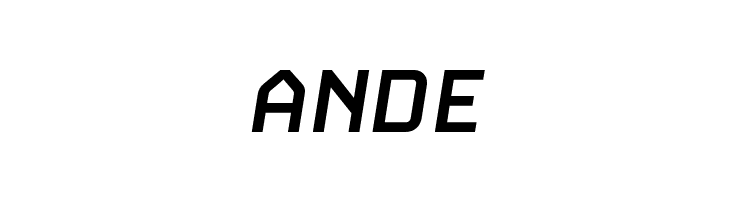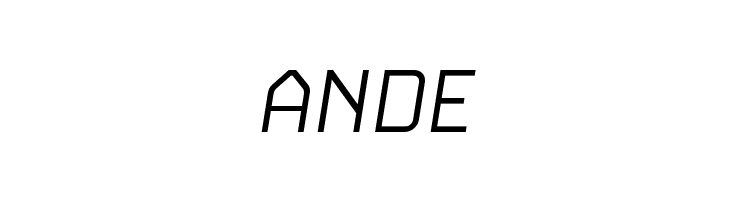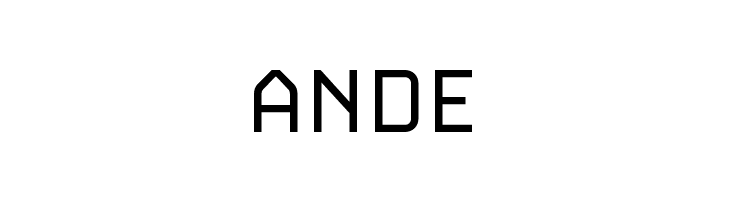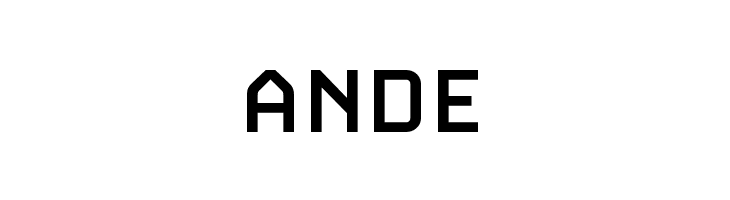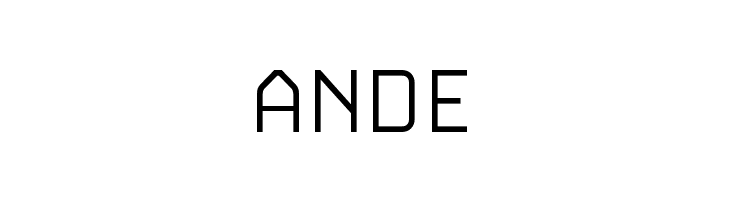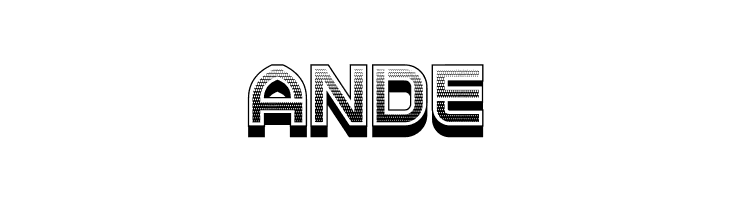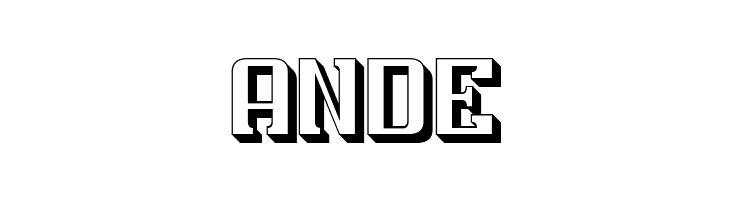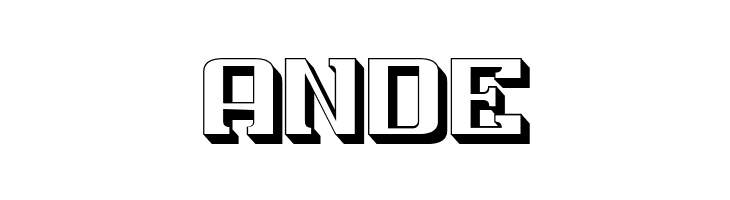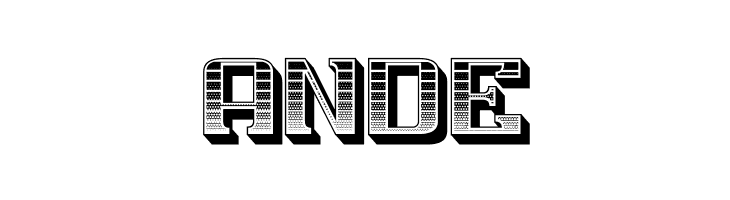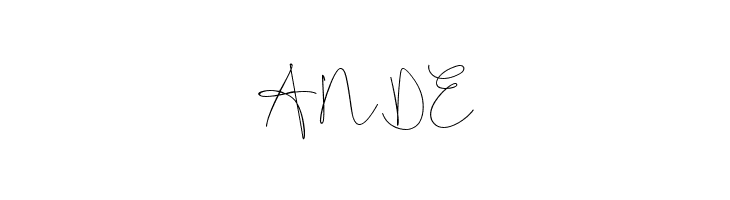
A bold, hollow, and condensed font with a modern, decorative style.
A bold, hollow, 3D decorative font with strong outlines and a modern, dynamic style.
A bold, decorative font with a 3D effect and industrial texture.
A bold, handwritten font with a brush-like texture and dynamic style.
A bold, expressive handwritten font with a playful, brush-like texture.
A bold, decorative font with a dotted pattern and rounded edges.
A bold, expressive script font with a hand-painted, artistic style.
A bold, expressive script font with a hand-painted, dynamic style.
A bold, angular font with a futuristic and aggressive design.
A sharp, angular font with a futuristic and dynamic style.
A bold, angular, and italicized font with a futuristic and dynamic style.
A bold, angular font with strong geometric shapes and sharp edges.
A bold, angular font with a vintage sports-inspired style.
A bold, angular font with a modern, industrial feel.
A bold, geometric outline font with sharp angles and a futuristic style.
A bold, angular outline font with a dynamic italic slant.
A bold, angular font with a modern, geometric style.
A thin, handwritten font with a casual and elegant style.
A casual, handwritten font with smooth curves and a friendly appearance.
A flowing, cursive handwritten font with elegant loops and dynamic curves.
A textured, hand-drawn font with a rustic and organic feel.
A bold, decorative font with a 3D shadow and dotted texture.
Bold, rounded handwritten font with a playful and casual style.
An elegant, flowing script font with graceful cursive letterforms.